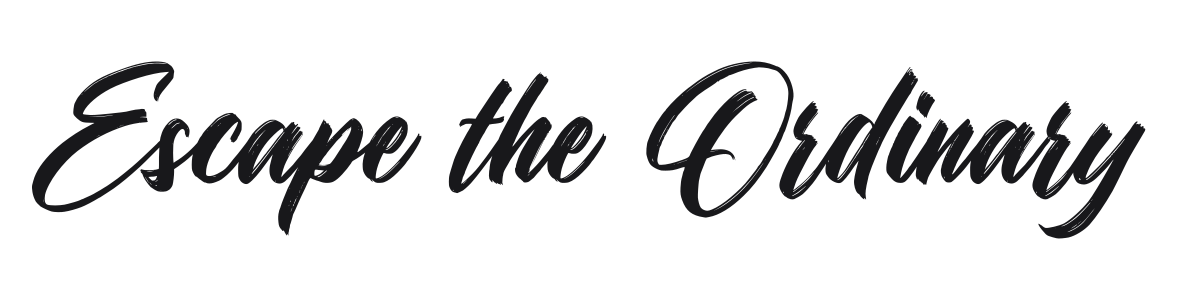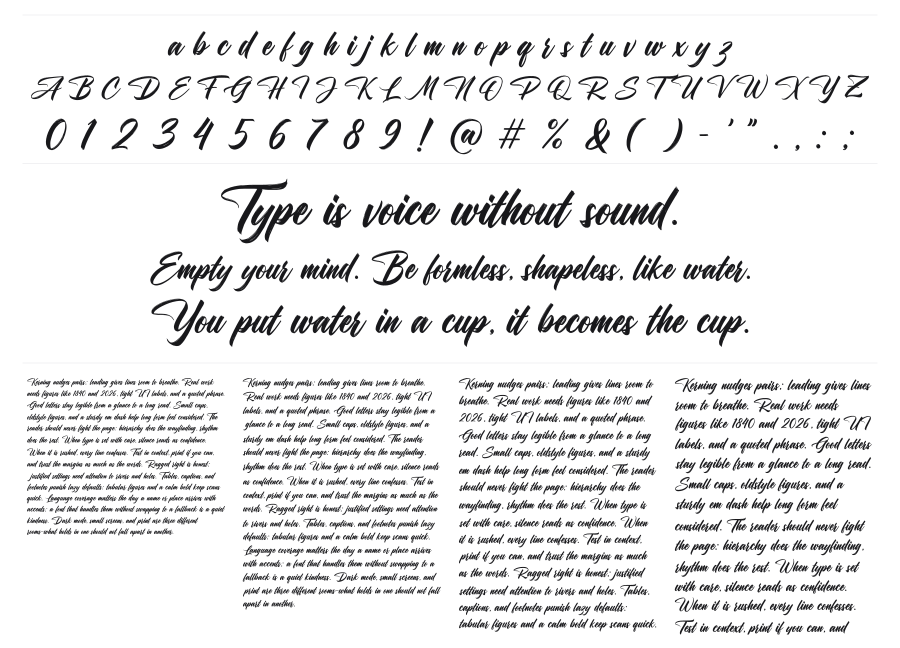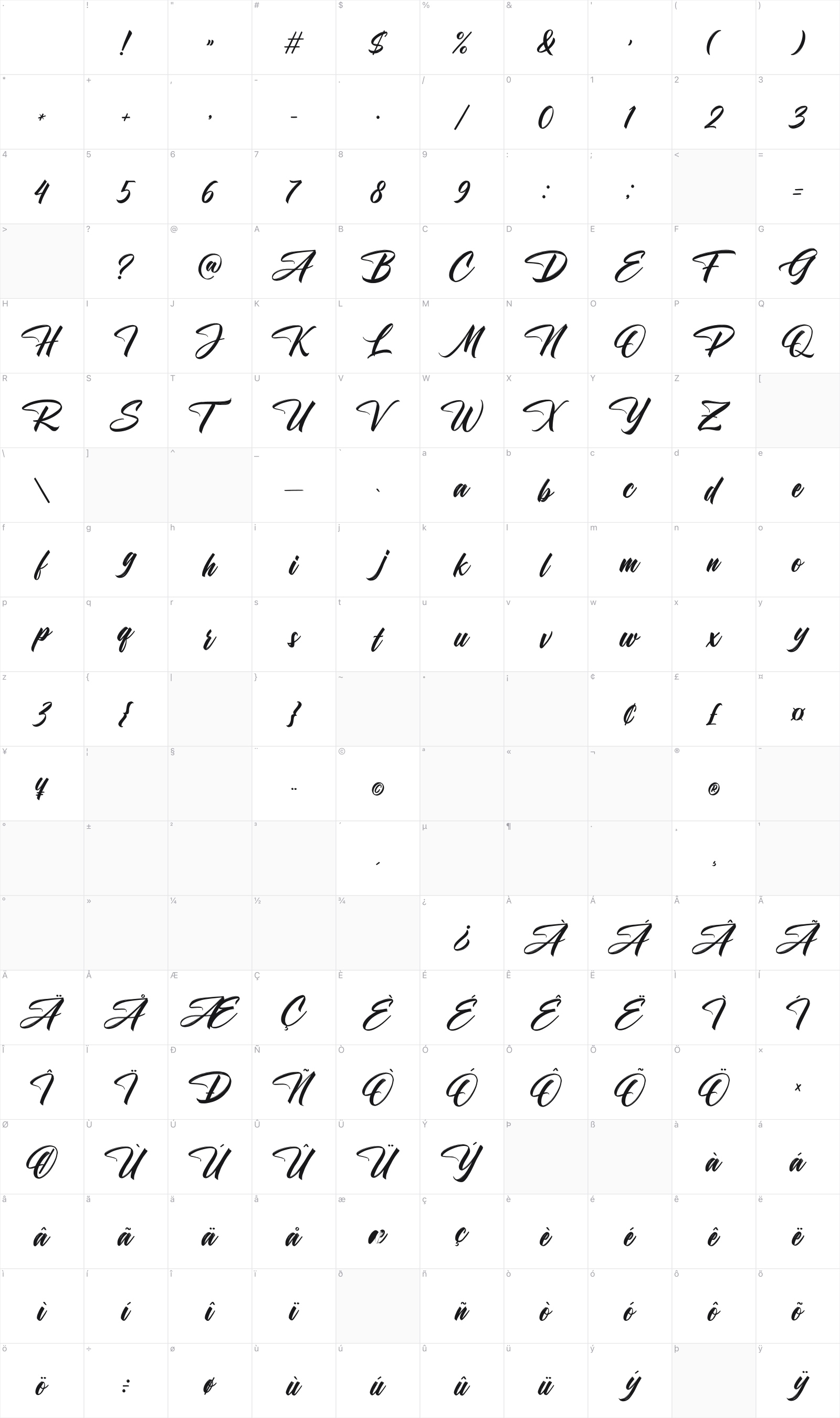
Escape the Ordinary
Escape the Ordinary is a bold brush script with visible bristle texture and frayed ink strokes that make every word feel handwritten at full force. The wide swinging connections and bouncy baseline give it restless energy, somewhere between a sign painter's brush and modern hand lettering. It reads confidently at large sizes and works well wherever a brand needs to feel genuine and unpolished.